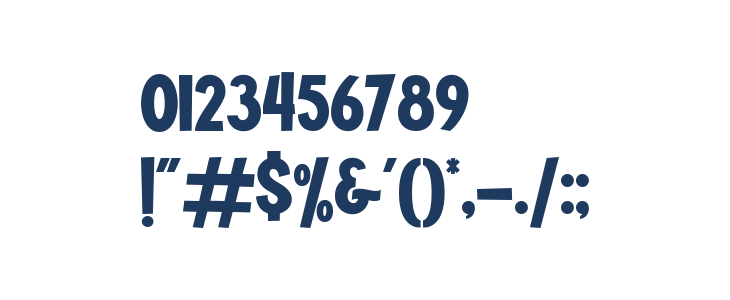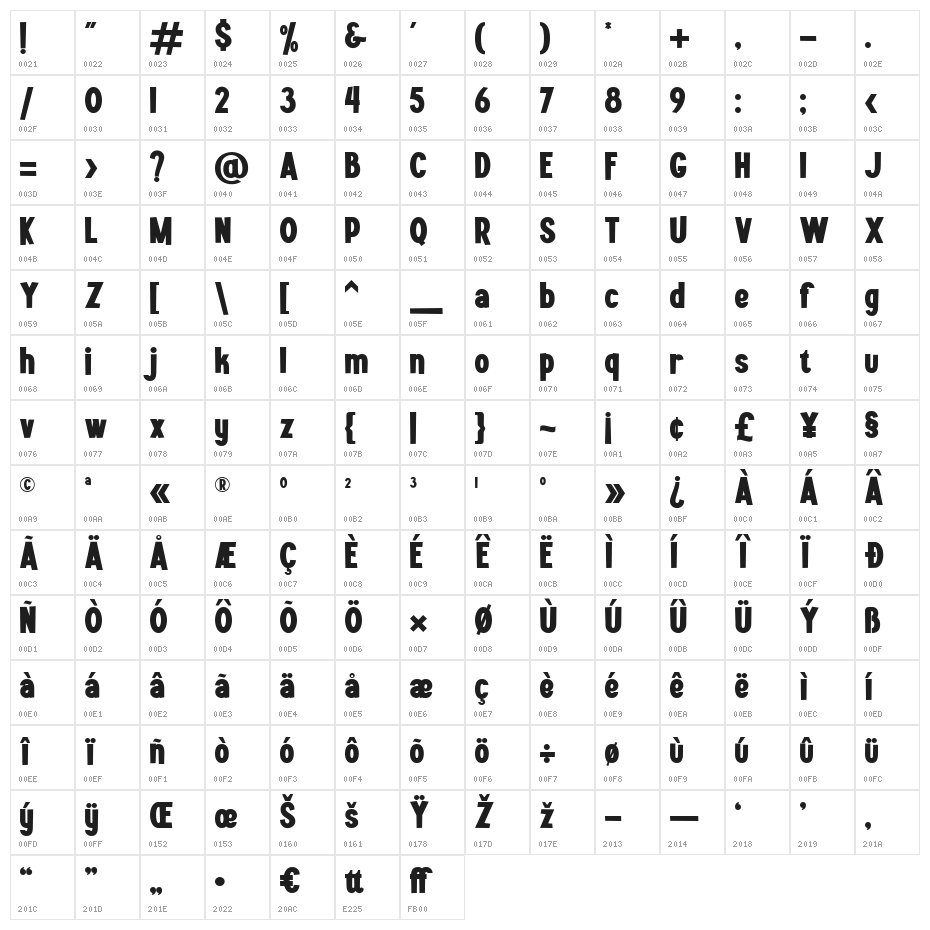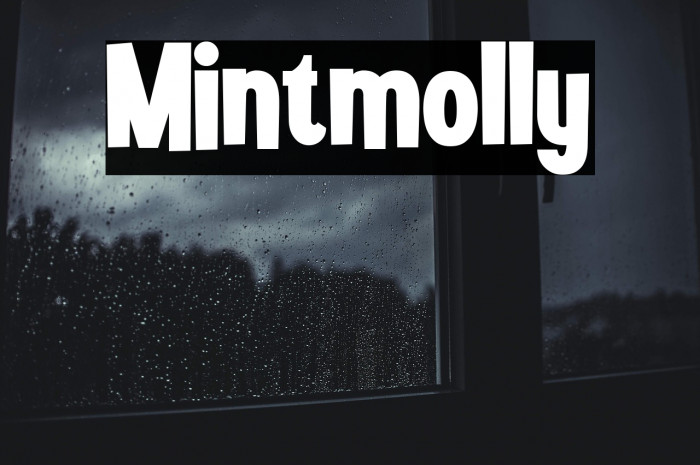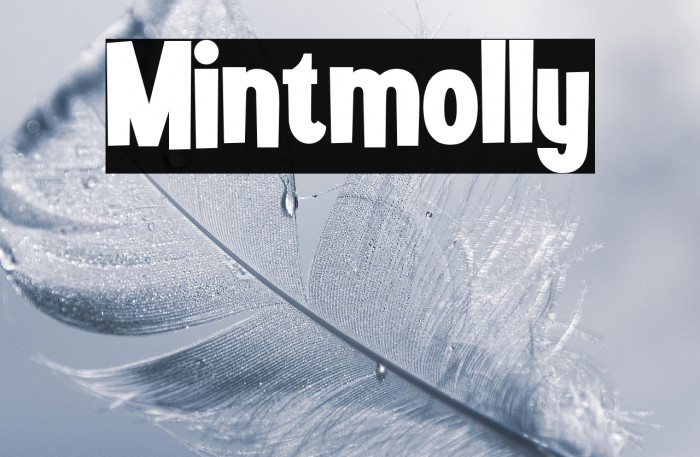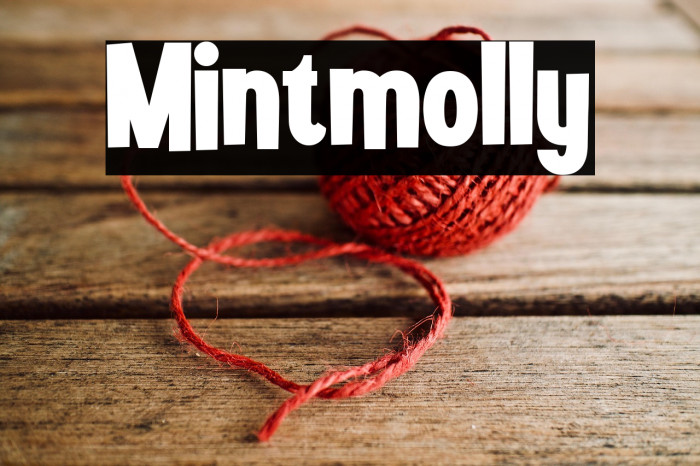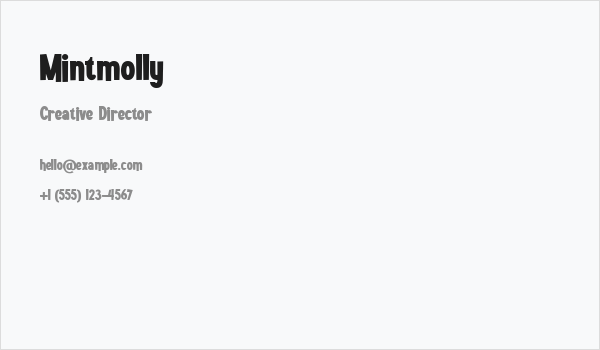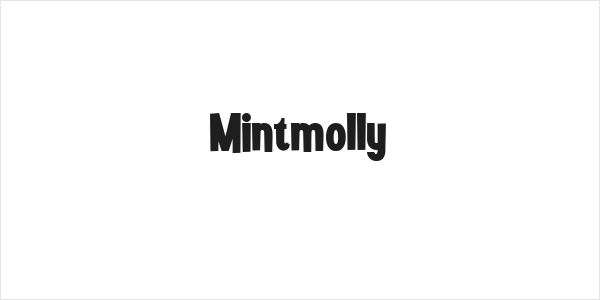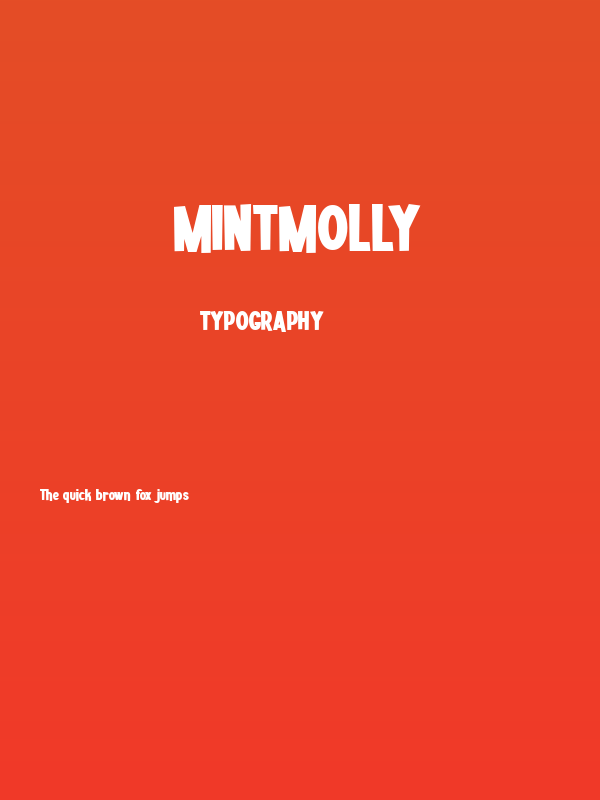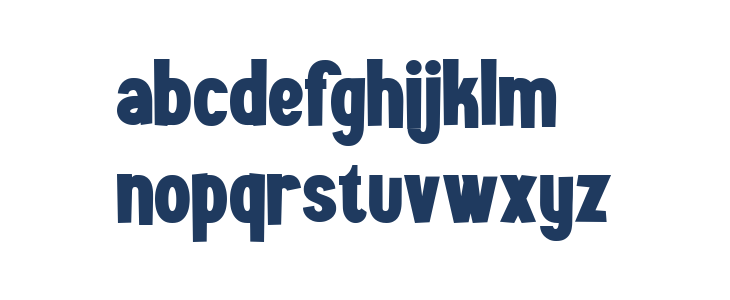
Mintmolly Font
Mintmolly Description
This font features bold, thick strokes with a playful and slightly irregular design, giving it a lively and dynamic appearance. The uppercase letters are robust and commanding, while the lowercase letters maintain a consistent weight, adding to the overall boldness. The numbers are equally bold, ensuring they stand out in any context. Special characters are designed with the same thickness, maintaining uniformity across the font. The font's style is reminiscent of vintage poster typography, making it ideal for eye-catching designs.
| Proposed Projects | Ideal for posters, headlines, branding, and any project requiring a bold, attention-grabbing typeface. |